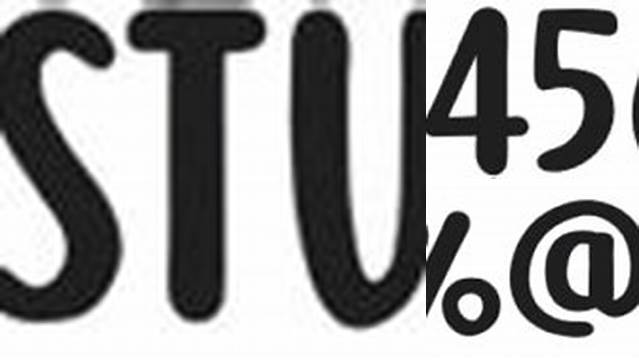
Hey guys! Are you on the hunt for a stylish and versatile font that won't break the bank? Look no further than the Scripter Regular OTF font! This fantastic typeface is perfect for a wide range of design projects, and the best part? You can snag it as a free download! In this comprehensive guide, we'll dive deep into everything you need to know about Scripter Regular OTF, including where to download it safely, how to install it, and how to use it effectively in your designs. Whether you're a seasoned designer or just starting out, this article is your go-to resource for all things Scripter Regular OTF. Let's get started!
What is Scripter Regular OTF?
First things first, what exactly is Scripter Regular OTF? Well, it's a stylish, modern font characterized by its clean lines and elegant curves. It's classified as an OTF (OpenType Font), which means it offers enhanced features like ligatures and stylistic alternates, making it a versatile choice for various design applications. The Scripter Regular OTF font boasts a balanced design, making it highly readable while still maintaining a touch of personality. Its versatility makes it suitable for everything from headlines and logos to body text and branding materials. The font's design allows it to seamlessly integrate into diverse design projects, ensuring visual appeal and readability. The designers have carefully crafted each letter, creating a harmonious balance between simplicity and sophistication. This adaptability makes it a preferred choice among designers looking for a font that can adapt to various project types, from digital interfaces to printed media.
With its distinct visual characteristics, Scripter Regular OTF provides a fresh perspective to traditional typography. It's not just a font; it's a statement. It speaks volumes about the designer's attention to detail and their ability to convey messages with style. Moreover, it's a great option to use for various graphic design projects, including websites, logos, posters, and social media graphics. The font's adaptability is due to its balanced form, which makes it simple to read while still maintaining a hint of individuality. It fits seamlessly into a variety of design projects, guaranteeing both visual appeal and readability. When you choose Scripter Regular OTF, you're choosing a font that's both visually appealing and functional, capable of enhancing any design.
Why Choose Scripter Regular OTF?
So, why should you choose Scripter Regular OTF over the countless other fonts out there? Several key factors make this font a standout choice. First and foremost, it's its incredible versatility. Whether you're working on a logo, a website, a poster, or any other design project, Scripter Regular OTF can adapt to your needs. The clean and modern aesthetic ensures your designs look professional and contemporary. It also offers a wide range of applications. From headings to body text, this font handles it all with ease. Its readability is another major advantage. In today's fast-paced world, you need a font that's easy to read at a glance, and Scripter Regular OTF delivers on that front. This makes it ideal for both print and digital media. It ensures that your message is clear and easily understood by your audience. The font is not just about aesthetics; it's also about functionality, making your designs not only beautiful but also user-friendly.
Also, consider the character and personality it brings to the table. It has a unique charm that can elevate your brand's identity. Using this font helps you create a distinct visual presence that captivates your audience. The font's elegance and modernity are a great way to make a lasting impression. Scripter Regular OTF allows you to create a consistent brand image that resonates with your target demographic. When selecting a font, consider its impact on the overall project. Scripter Regular OTF offers the right mix of aesthetic appeal and functionality, making it an outstanding option for all your design requirements. It's more than just a font; it's a tool that allows you to convey your message effectively and memorably.